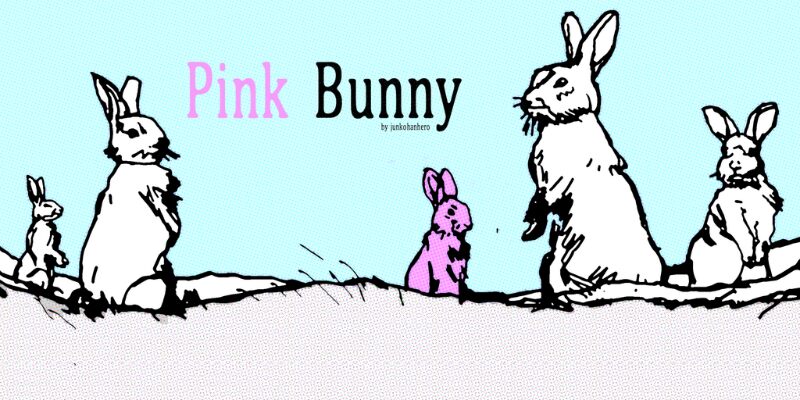
Pink Bunny
Pink Bunny is a display font with a distinct condensed width that immediately grabs attention. Designed by junkohanhero, this typeface exudes a whimsical and playful vibe, with its rounded edges and fluid strokes evoking a sense of warmth and friendliness.
The font's unique character lies in its ability to blend modern aesthetics with a touch of vintage charm. Its clean lines and minimalist approach make it well-suited for a variety of design applications, from bold headlines and impactful branding to creative typography in packaging, advertising, and digital interfaces.